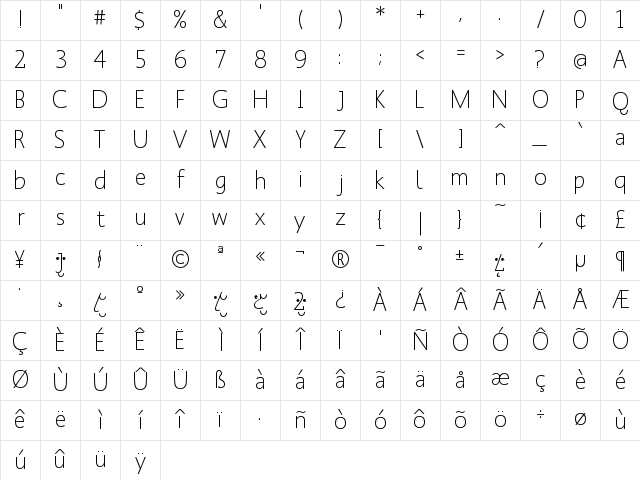
MankSans Regular
MankSans Family
Design Context for MankSans
MankSans is a composed and adaptable typeface that performs quietly and consistently across a wide range of design contexts.